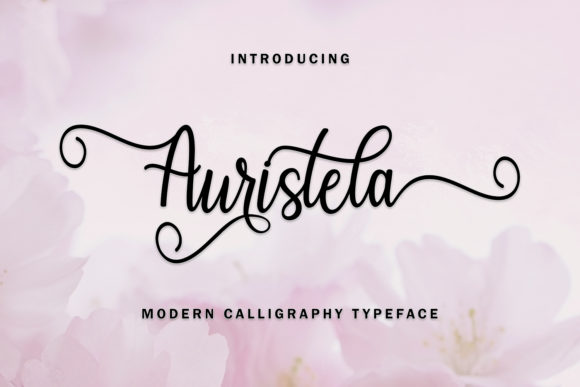
The Quest for the Perfect Script Font: How Auristela Stole My Heart
I still remember the design project that led me to discover Auristela Script Font. I was working on a branding project for a luxury boutique, and I needed a font that exuded elegance and sophistication. As I scoured the internet for the perfect script font, I stumbled upon Auristela, and it was love at first sight! 😍
Auristela: A Stunning Script Font with Amazing Swashes
Auristela is a modern script font that boasts stunning swashes and a sophisticated style. Its elegant lines and curves make it perfect for designs that require a touch of luxury and refinement. In this article, I’ll share my experience with Auristela, its features, and how to make the most of it in your designs.
- 💫 Elegant and sophisticated design
- 🔥 Amazing swashes that add a touch of luxury
- 🎨 Versatile and suitable for various design projects
- ⚠️ Some swashes may not work well with certain glyphs or characters
- 🤯 Can be overwhelming to navigate the vast number of glyphs and alternates
The Designer Inspiration Behind Auristela
Auristela was designed with the intention of creating a modern script font that exudes elegance and sophistication. The designer aimed to craft a font that would be versatile and suitable for various design projects, from luxury branding to wedding invitations.
| Font Name | Auristela Script Font |
| Author | zulkhairilettering |
Q: What makes Auristela unique?
A: Auristela’s unique feature is its stunning swashes, which add a touch of luxury and refinement to any design.
Q: Is Auristela suitable for body text?
A: While Auristela is highly legible, it’s best suited for headlines, titles, and short paragraphs. For body text, a more traditional font may be more suitable.